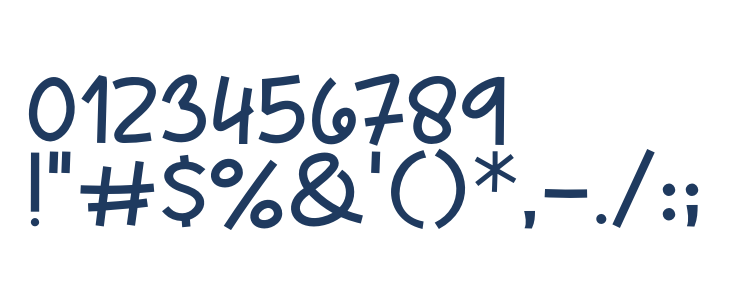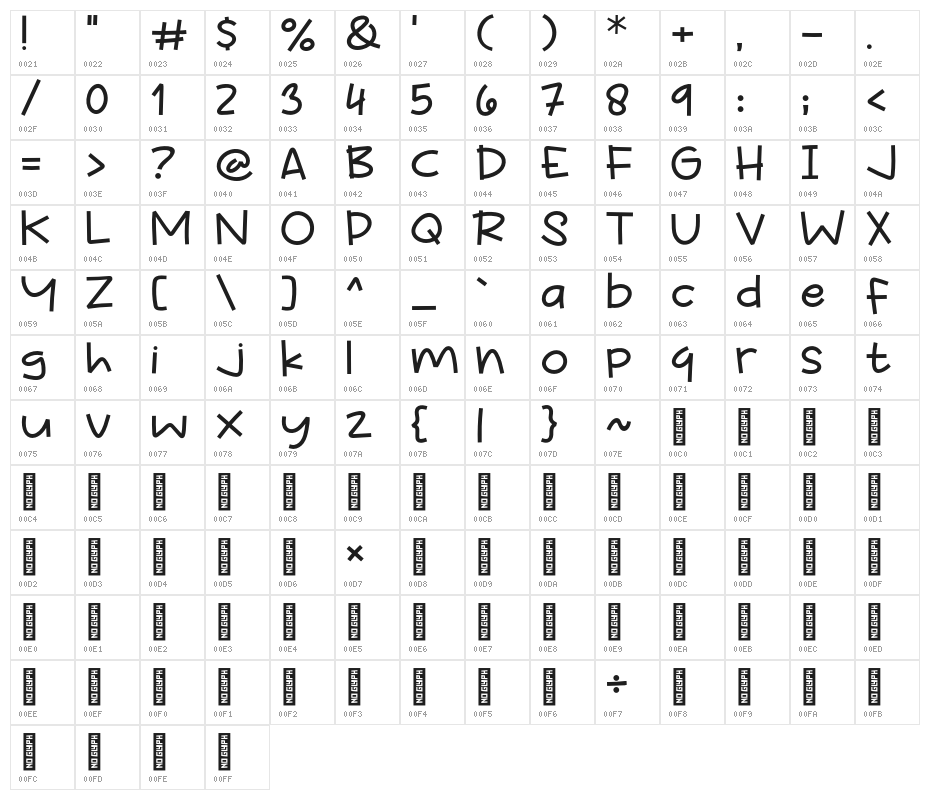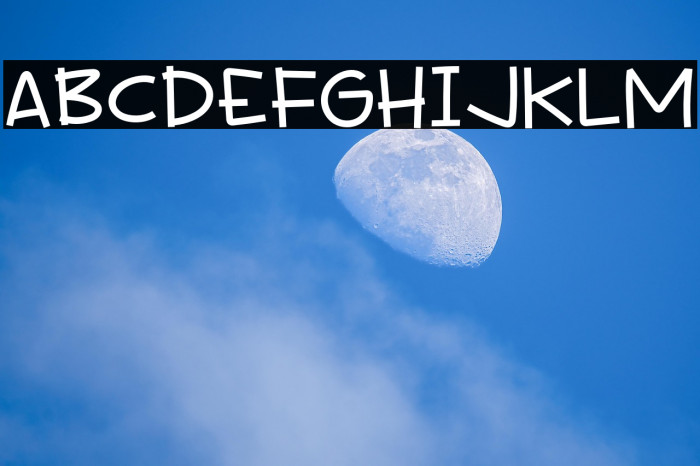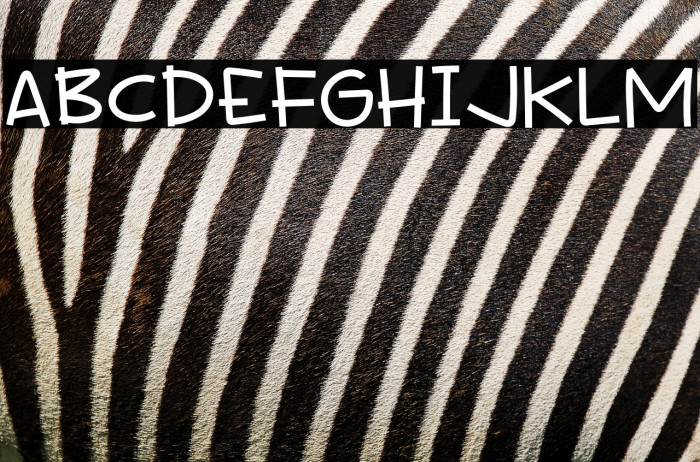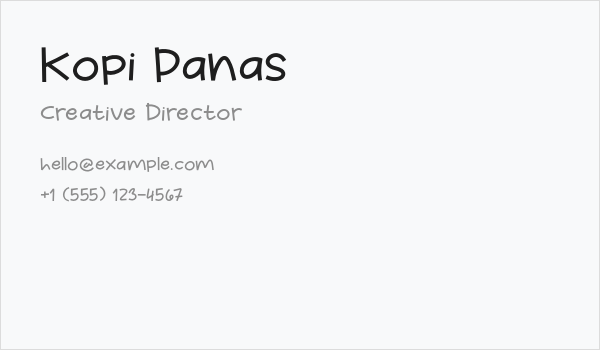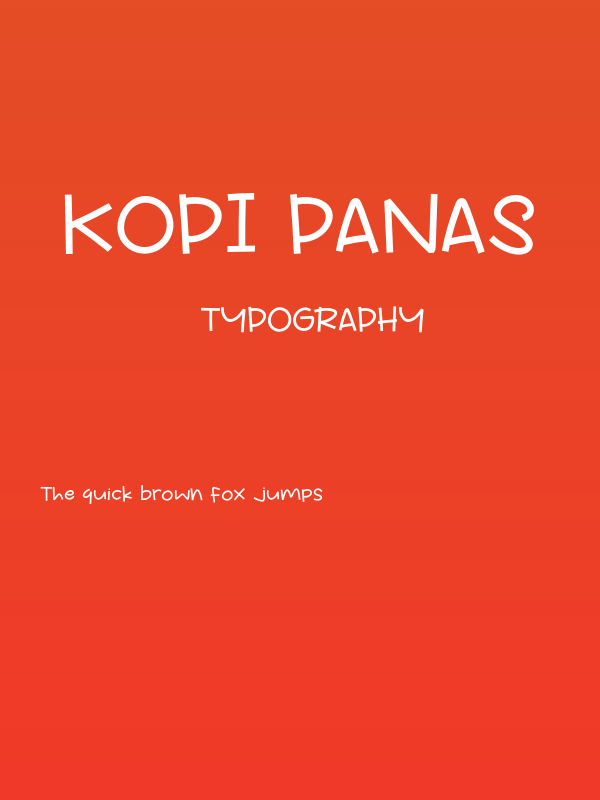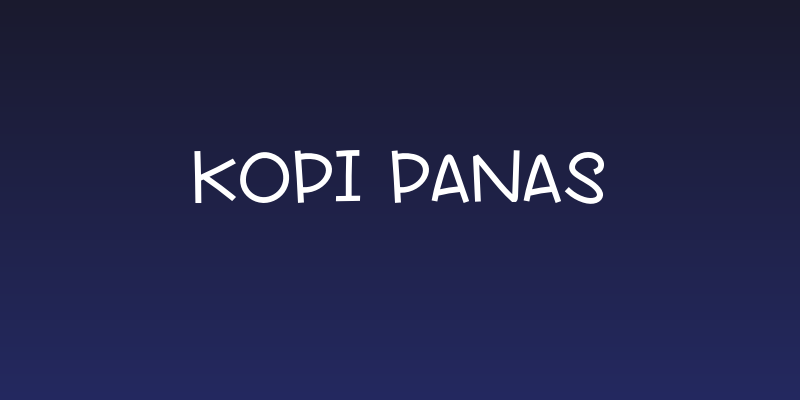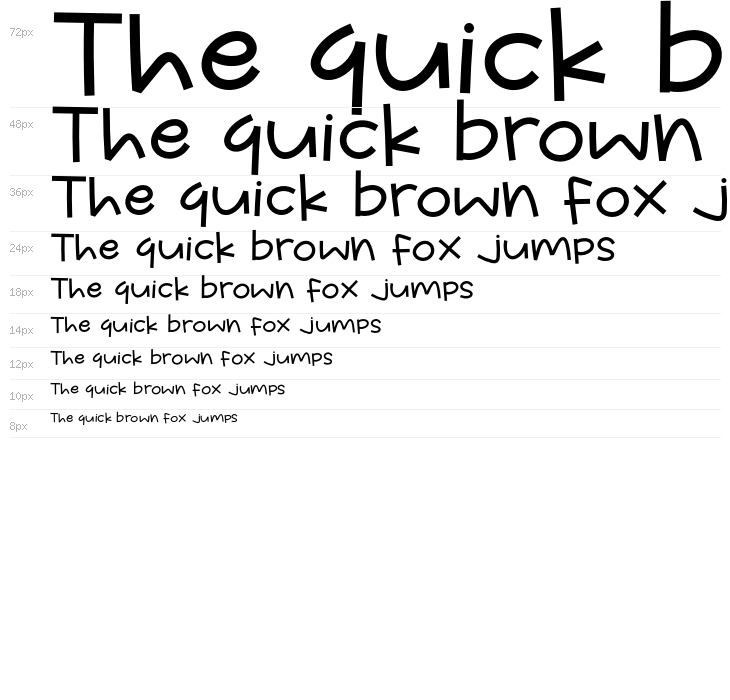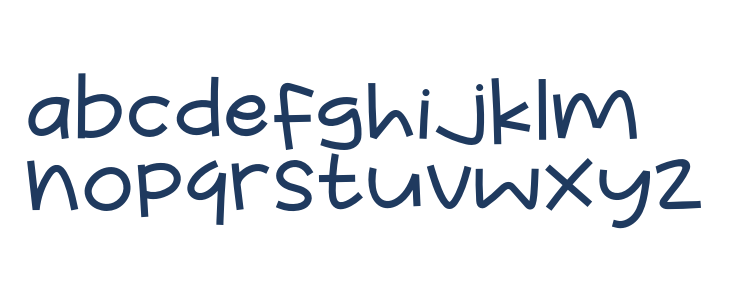
Kopi Panas Font
Kopi Panas Description
This playful and informal font features a handwritten style with a casual and friendly appearance. The characters are slightly irregular, giving it a whimsical and approachable feel. The strokes are consistent in thickness, providing a uniform look across all characters. The font includes both uppercase and lowercase letters, numerals, and a variety of special characters. Its design is reminiscent of casual handwriting, making it suitable for projects that require a personal touch.
| Use Case | Headlines, Informal text, Branding |
| Proposed Projects | Ideal for children's books, greeting cards, informal invitations, and playful branding. |